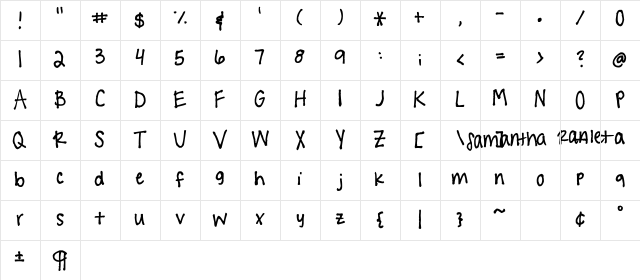
!!! Handwritingg <3 Regular
Design Context for !!! Handwritingg <3
!!! Handwritingg <3 flows with the natural rhythm of handwritten lettering, making it ideal for designs that call for warmth and personal expression. Its slender proportions lend an understated elegance to any composition.
Font Pairing: Combine !!! Handwritingg <3 with a simple geometric sans for maximum contrast - the tension between flowing curves and clean structure is a classic typographic pairing.
Pro Tip: Use !!! Handwritingg <3 for short runs of text - names, titles, or taglines. Extended body copy in script faces tires the eye quickly.